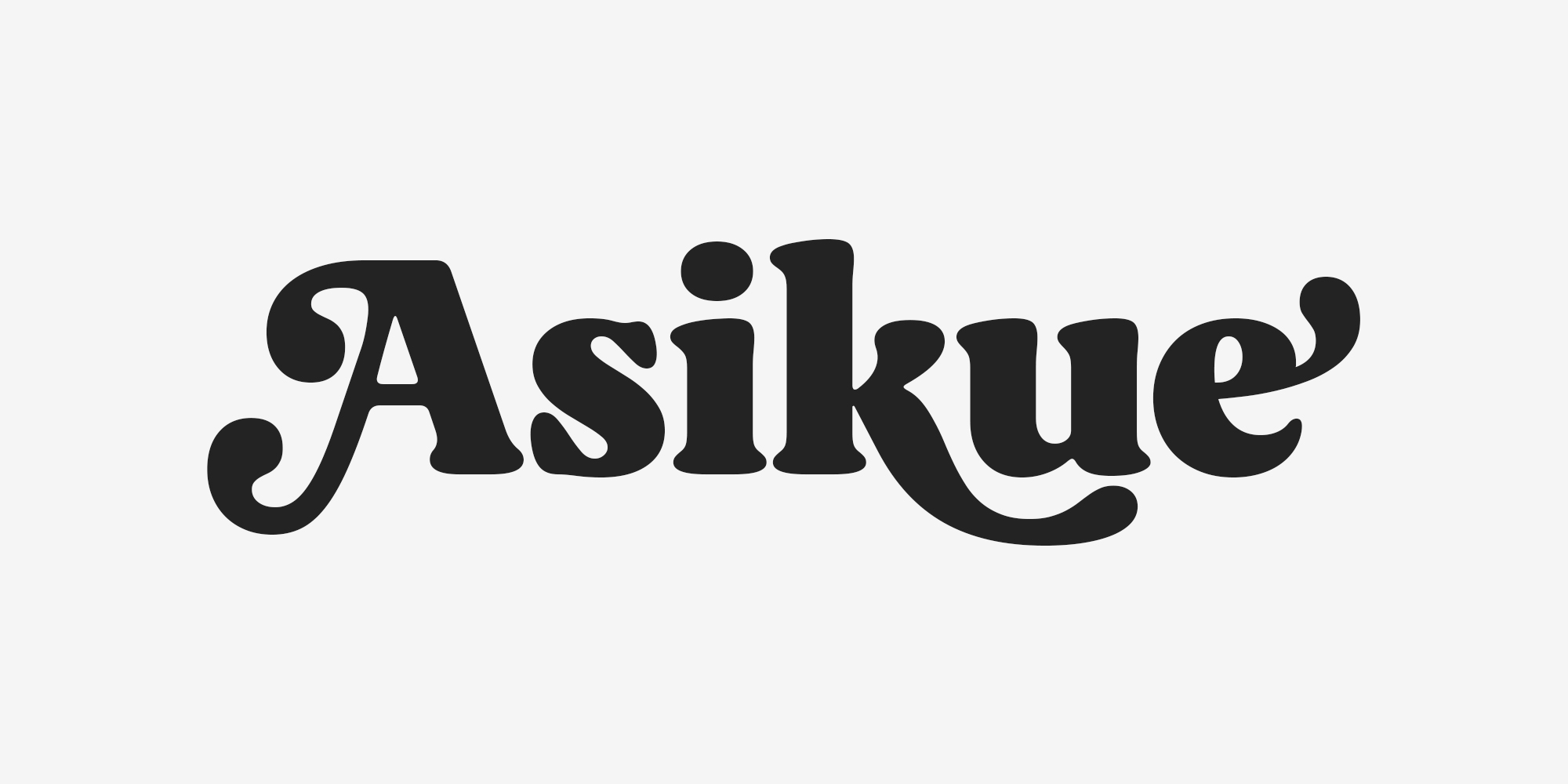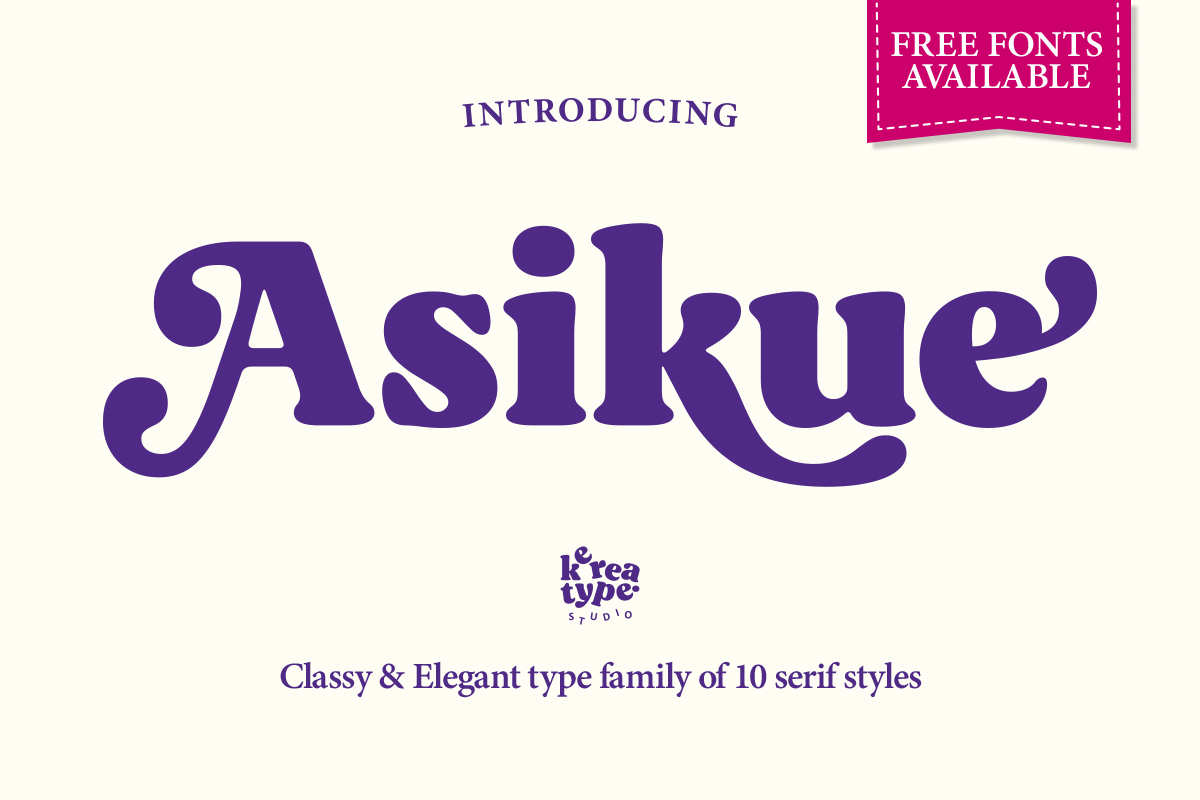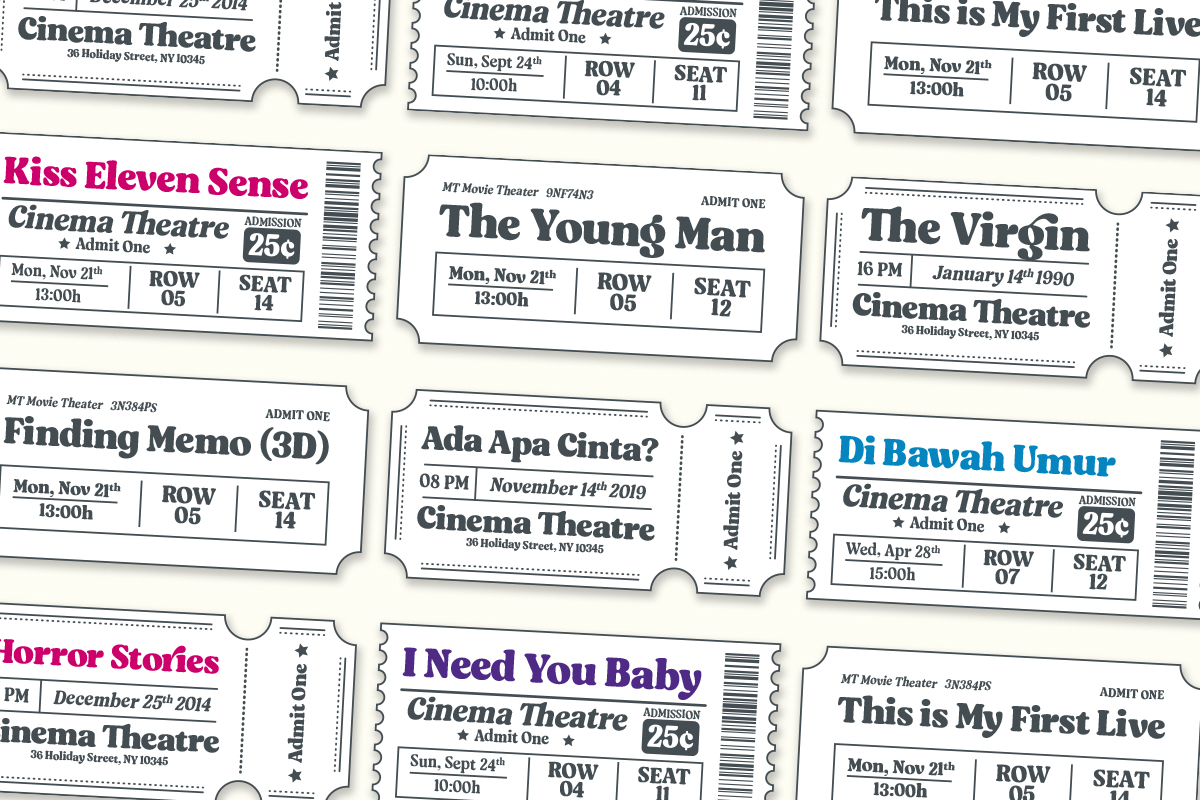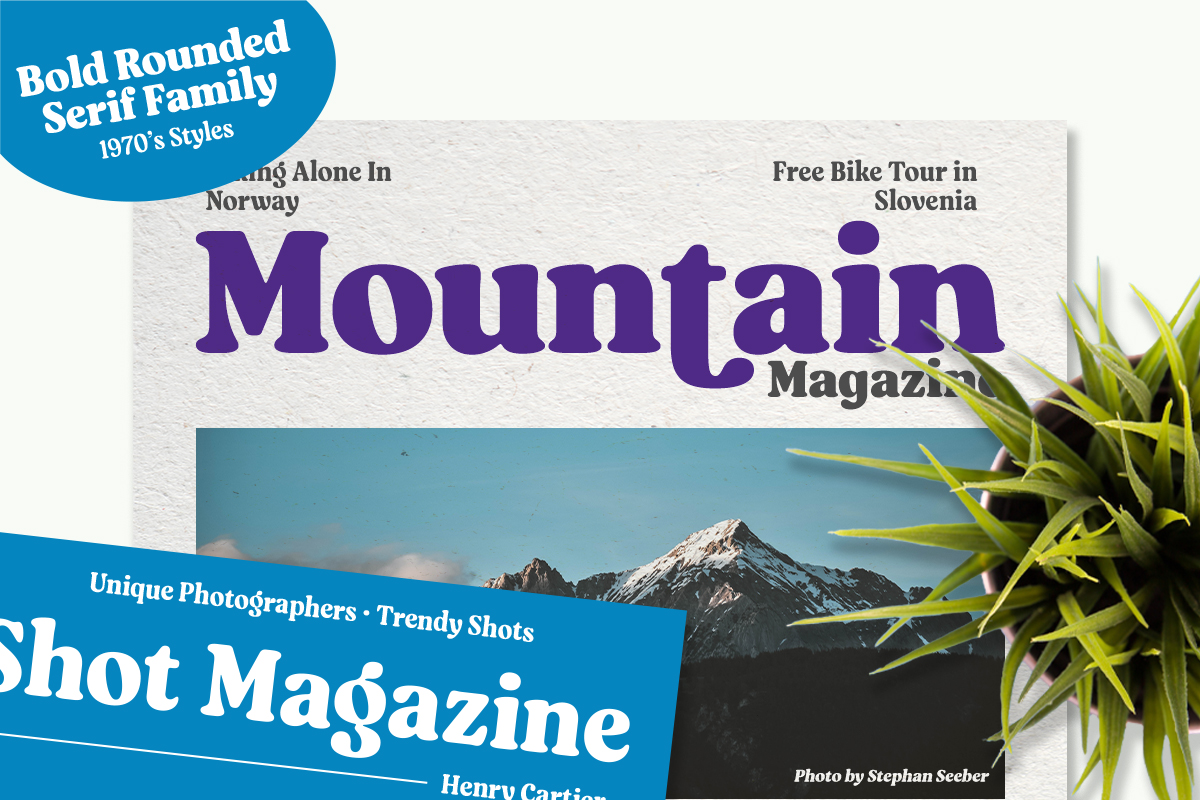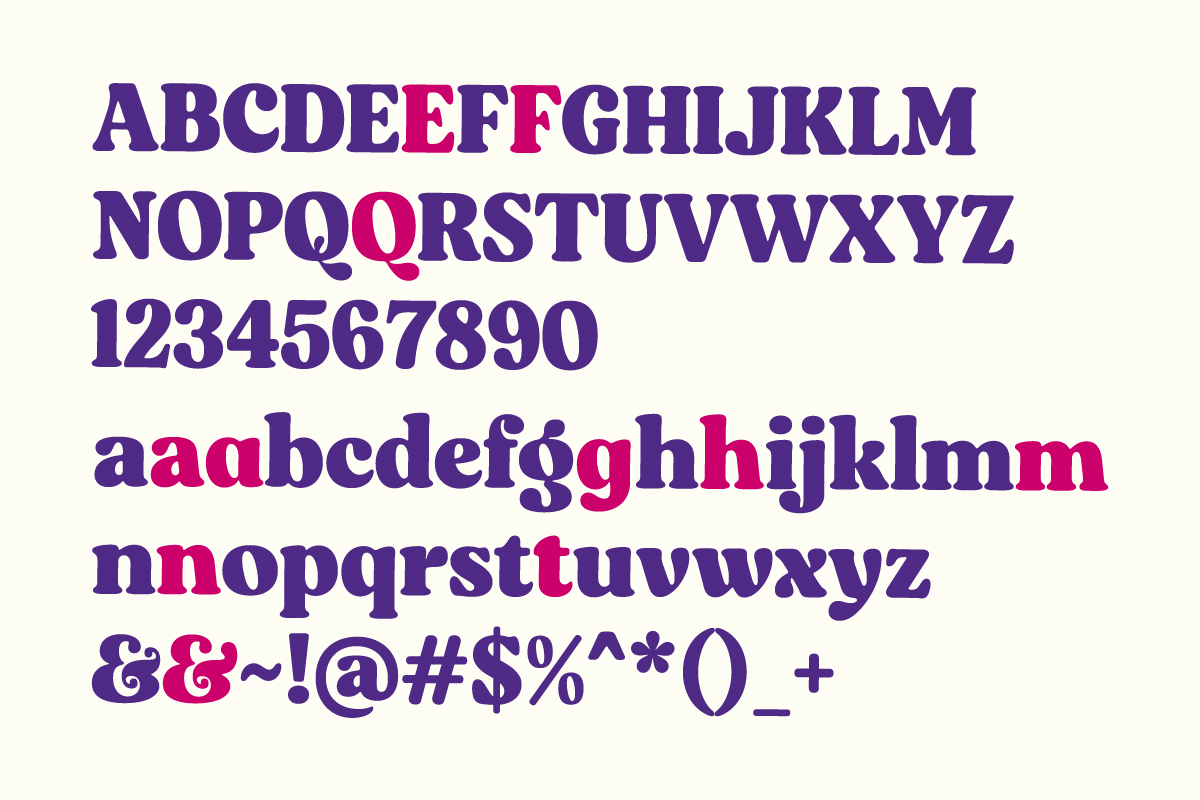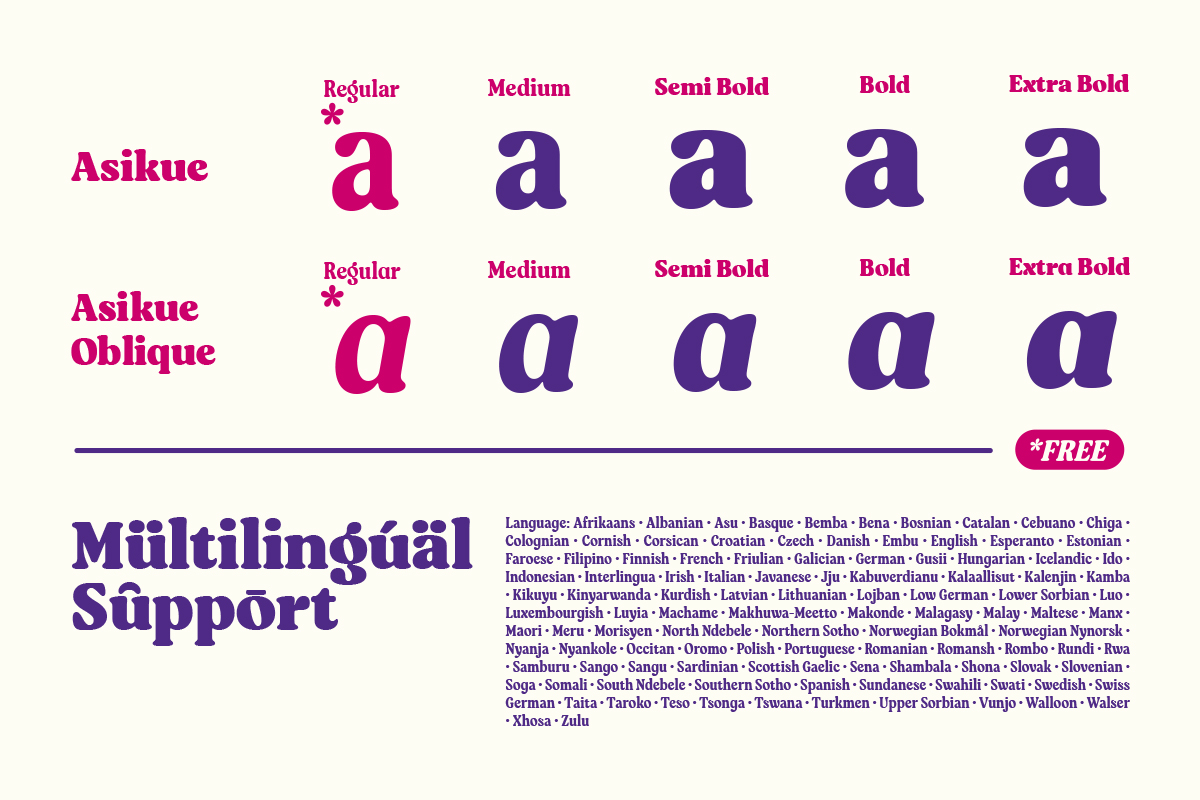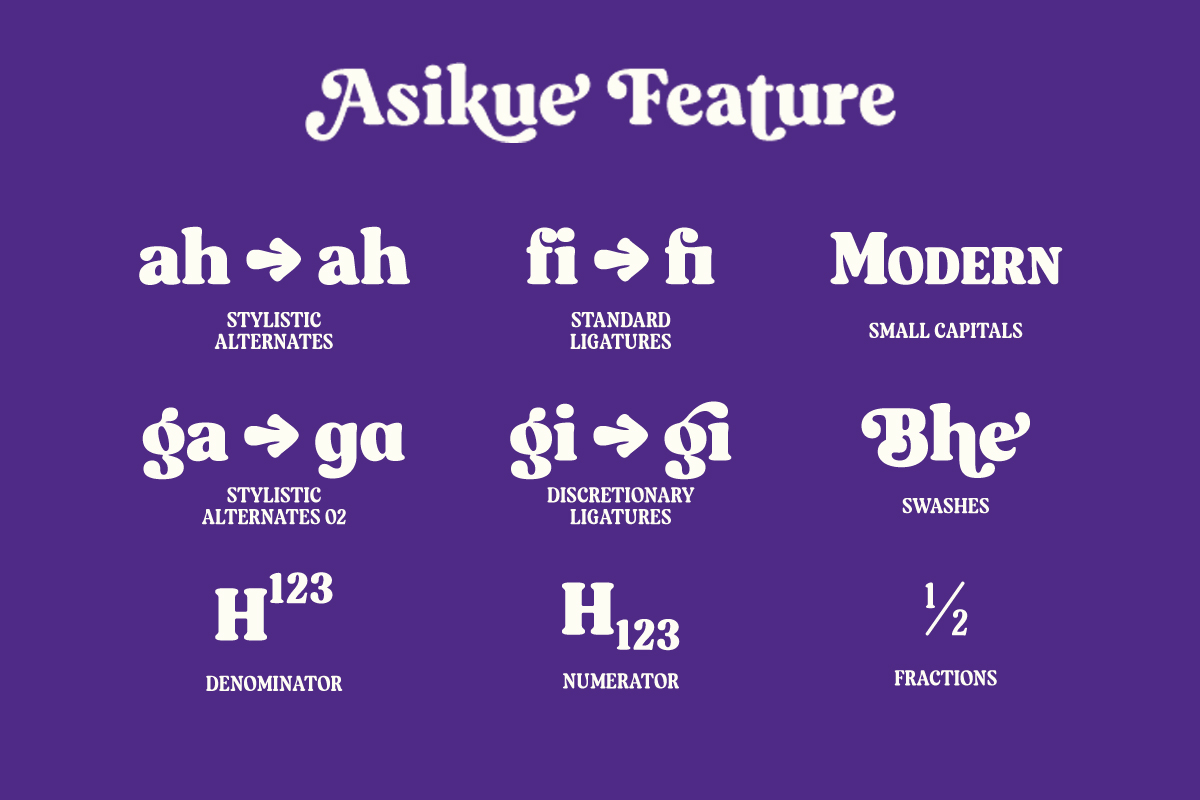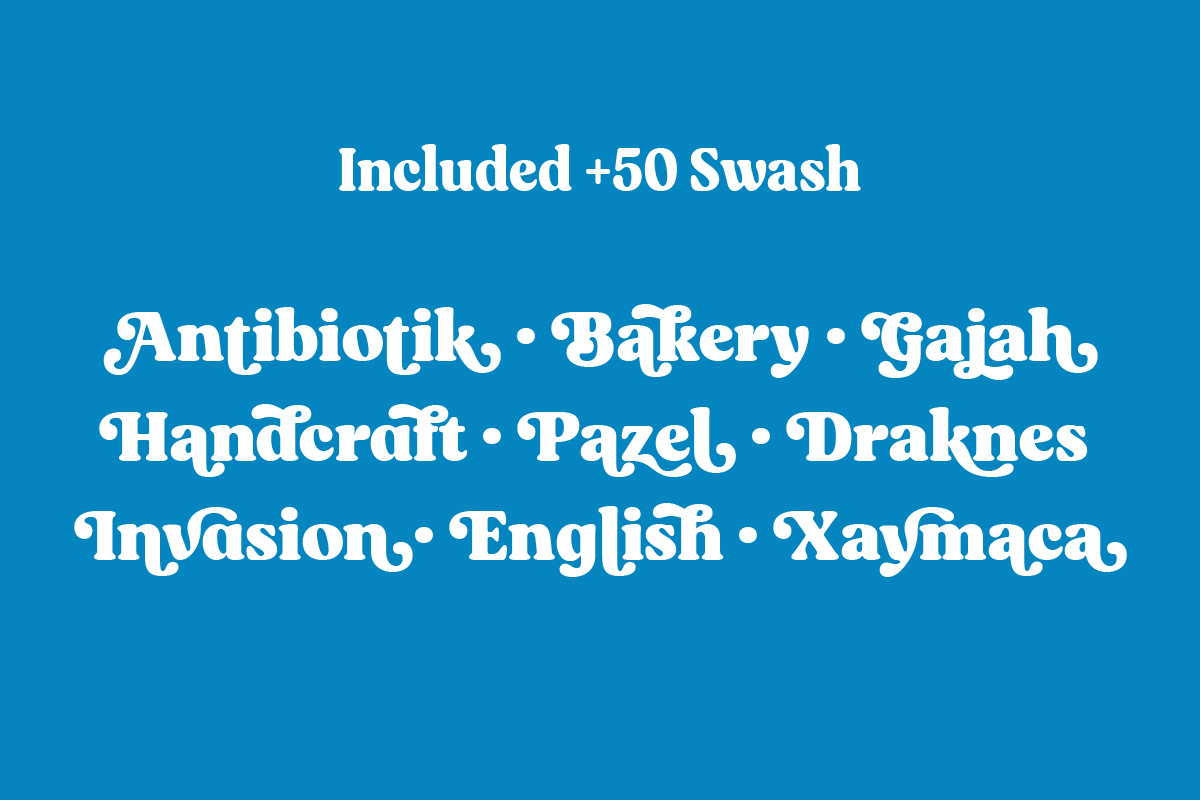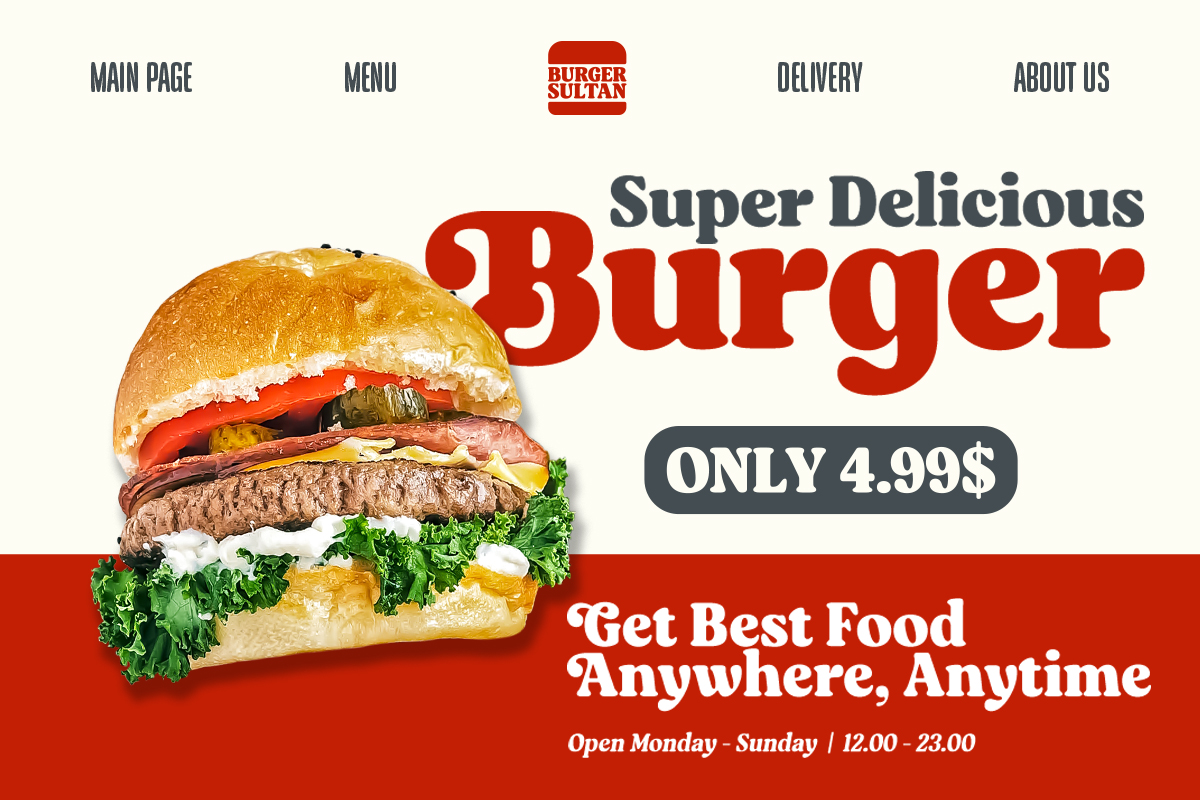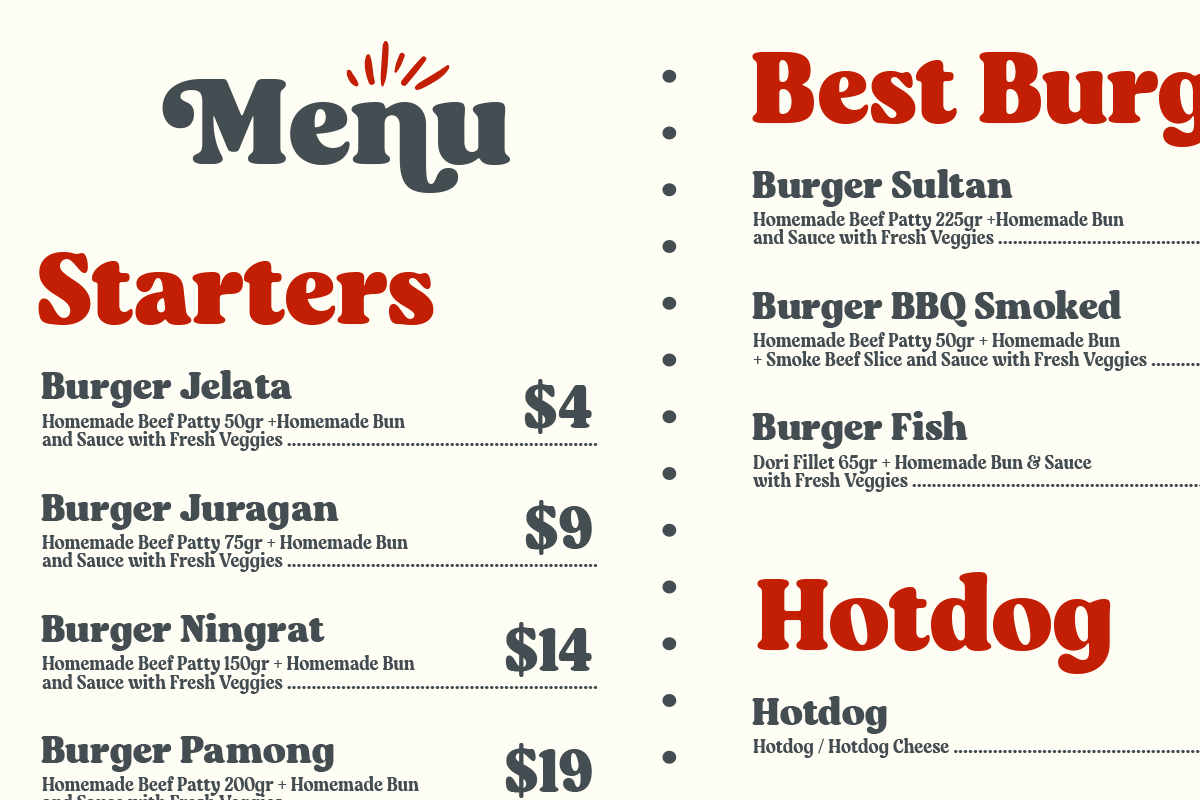
Asikue
A Bold 70s Retro Soft Serif Family Perfect For Playful Branding, Kids' Products, And Energetic Display Designs.
Asikue
Playful Chunky Retro Soft Serif
Asikue is a bold and soft serif font family that brings the groovy essence of 70s retro typography into the modern era. Consisting of 10 styles from Regular to Extra Bold with matching obliques, it features chunky, rounded letterforms designed to radiate energy and cheer. Packed with OpenType features like swashes, alternates, and ligatures, Asikue is incredibly versatile for everything from playful kids’ branding and snack packaging to high-impact logos and event posters. Whether you are aiming for a nostalgic throwback or a fun, approachable look, this font ensures your designs stand out with a splash of happiness and professional flair.
Playful Chunky Retro Soft Serif